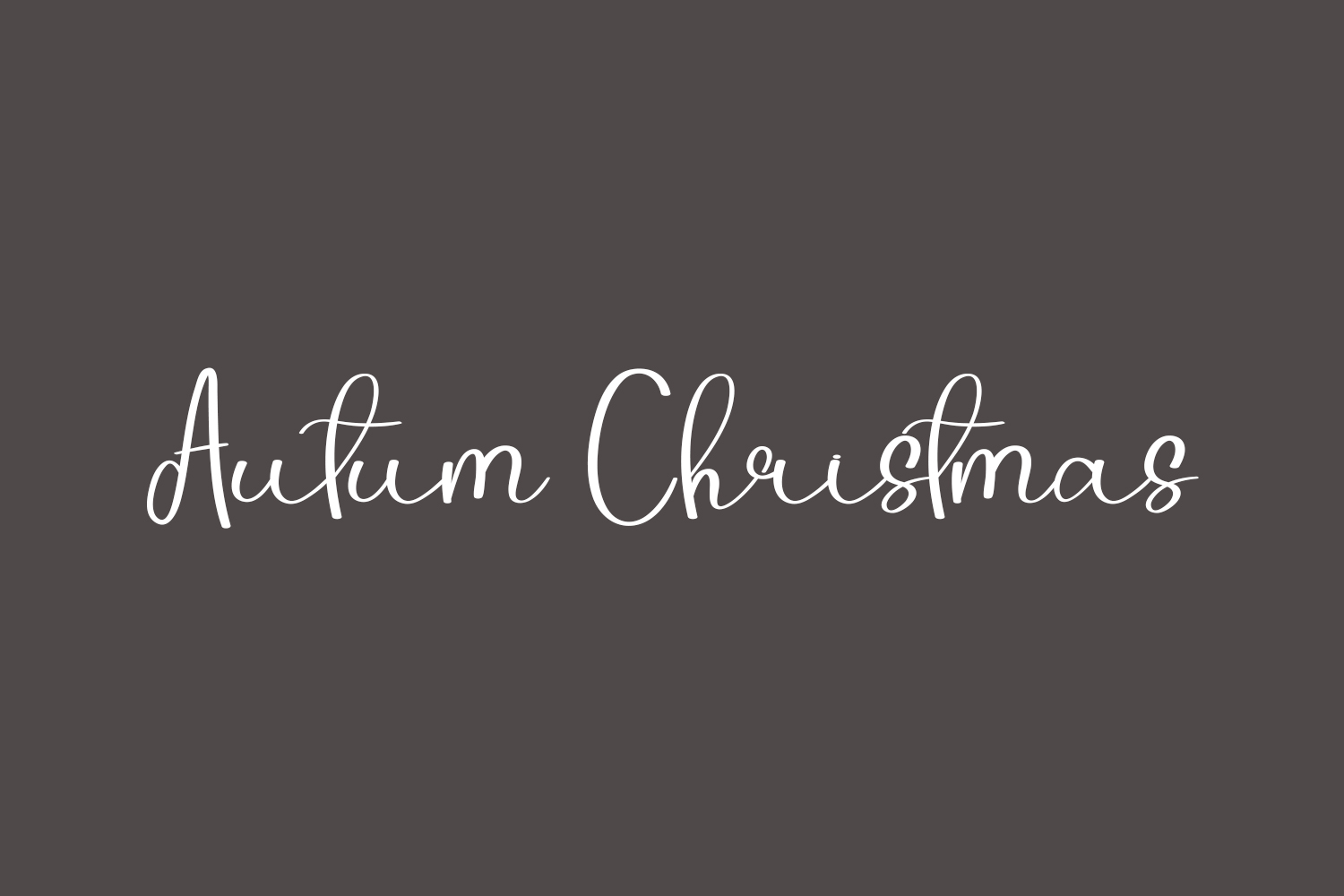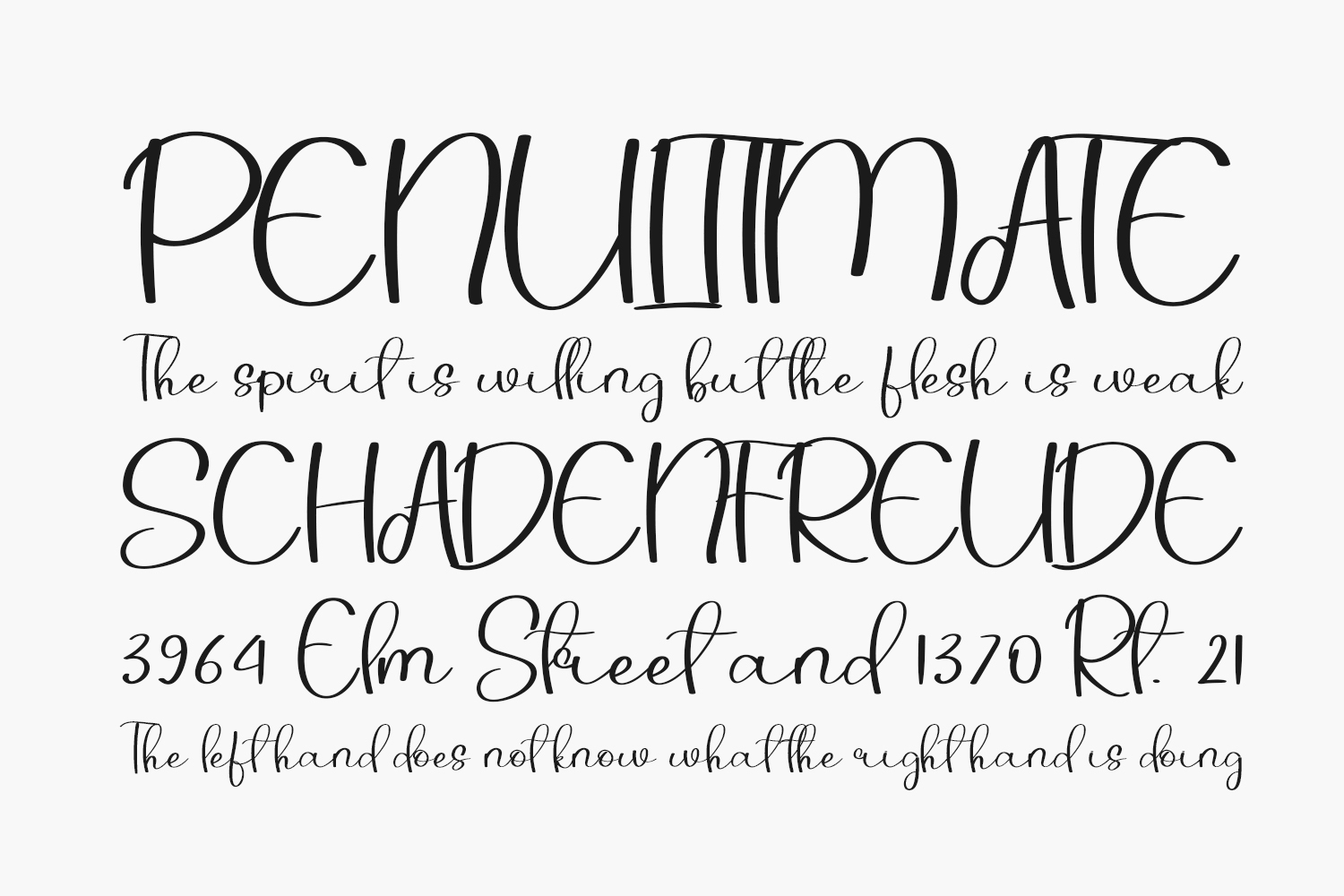
Meet Autum Christmas Free Font, a playful and whimsical script font that brings a touch of fun to your creative projects. Infuse it into your crafty ideas and witness delightful results! This versatile font is perfect for enhancing various materials such as cards, promotional ads, social media posts, product packaging, and more. Elevate your designs with the lively charm of Autum Christmas. Download the font for free if you need it for personal use or purchase the full version for commercial use.
Designed by Etik Fatimah